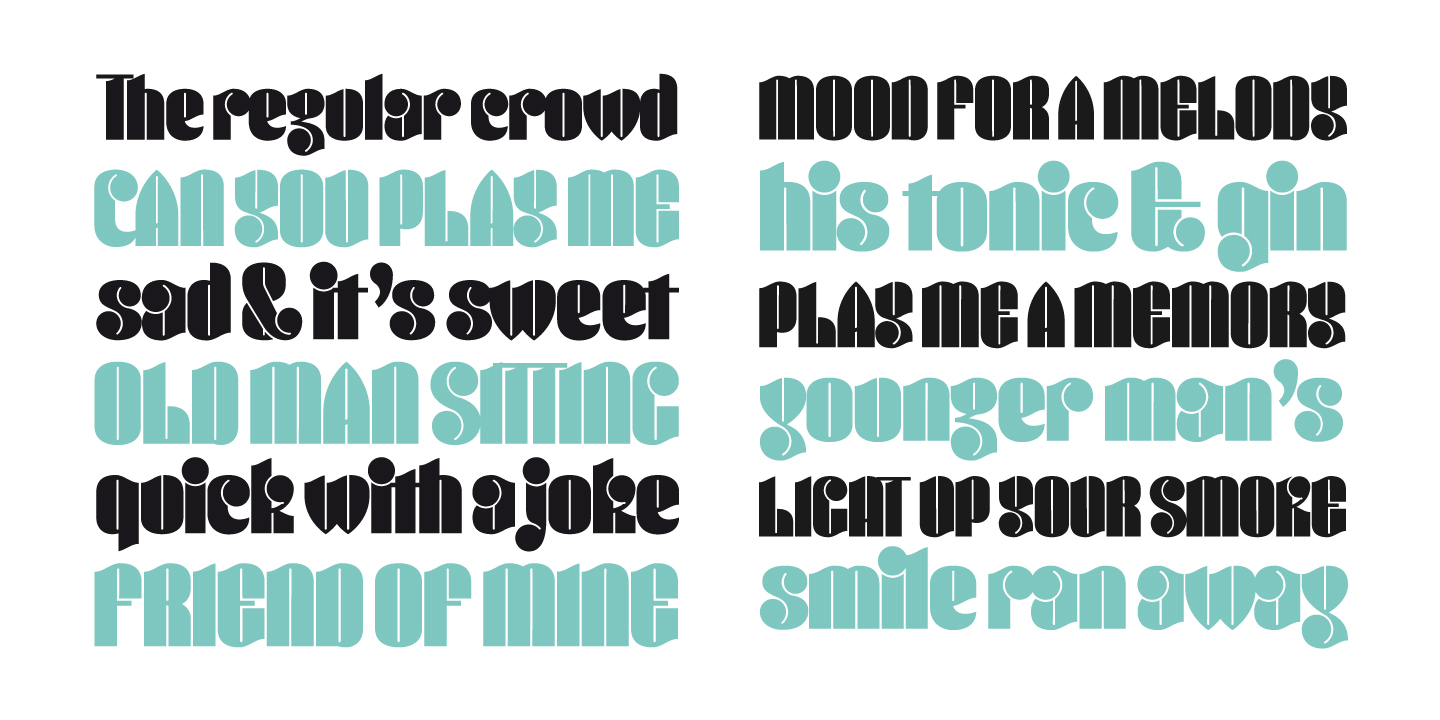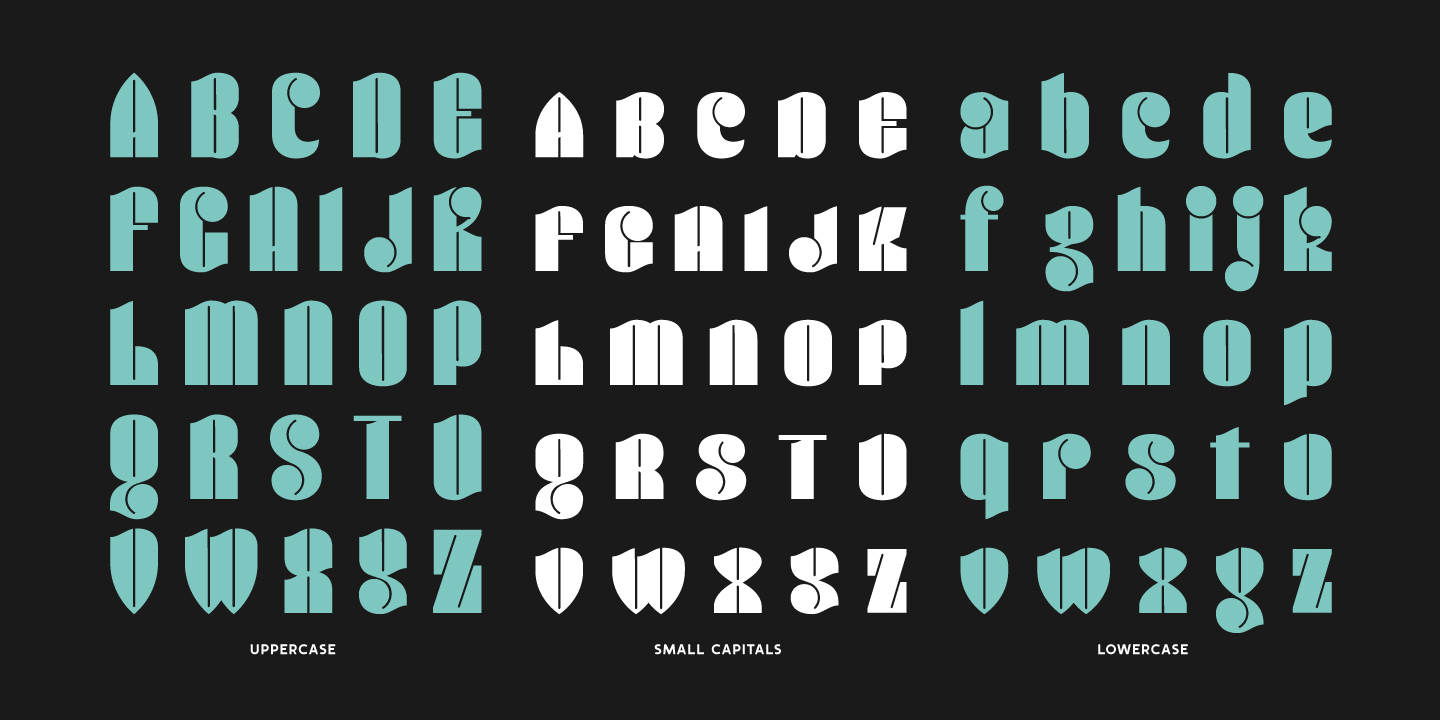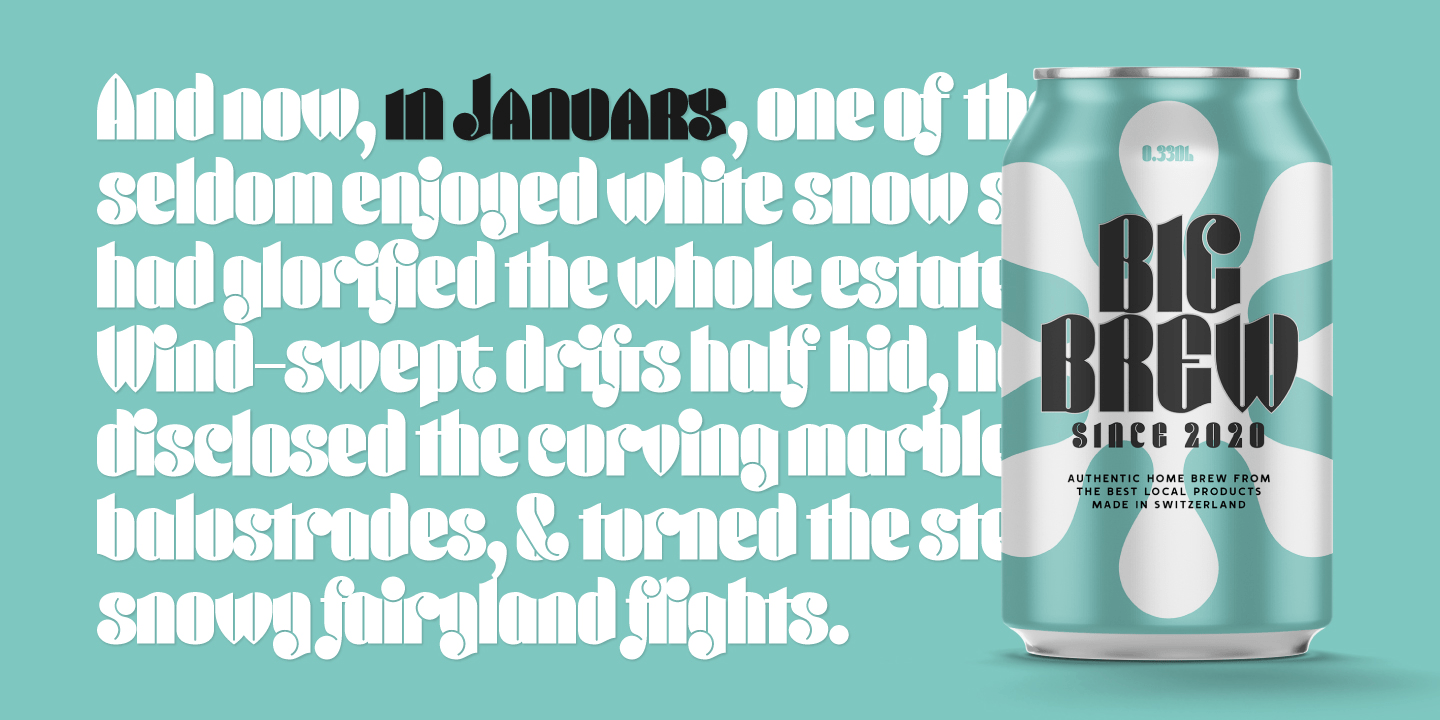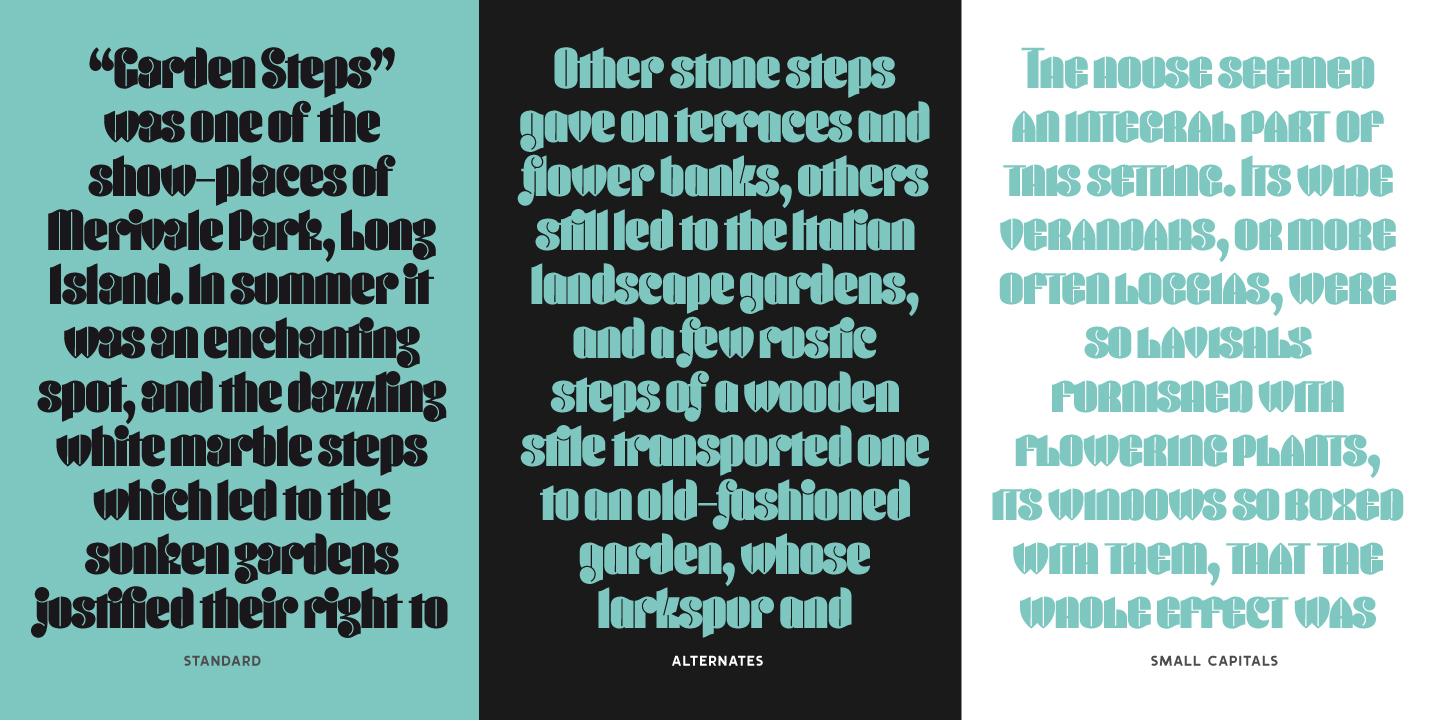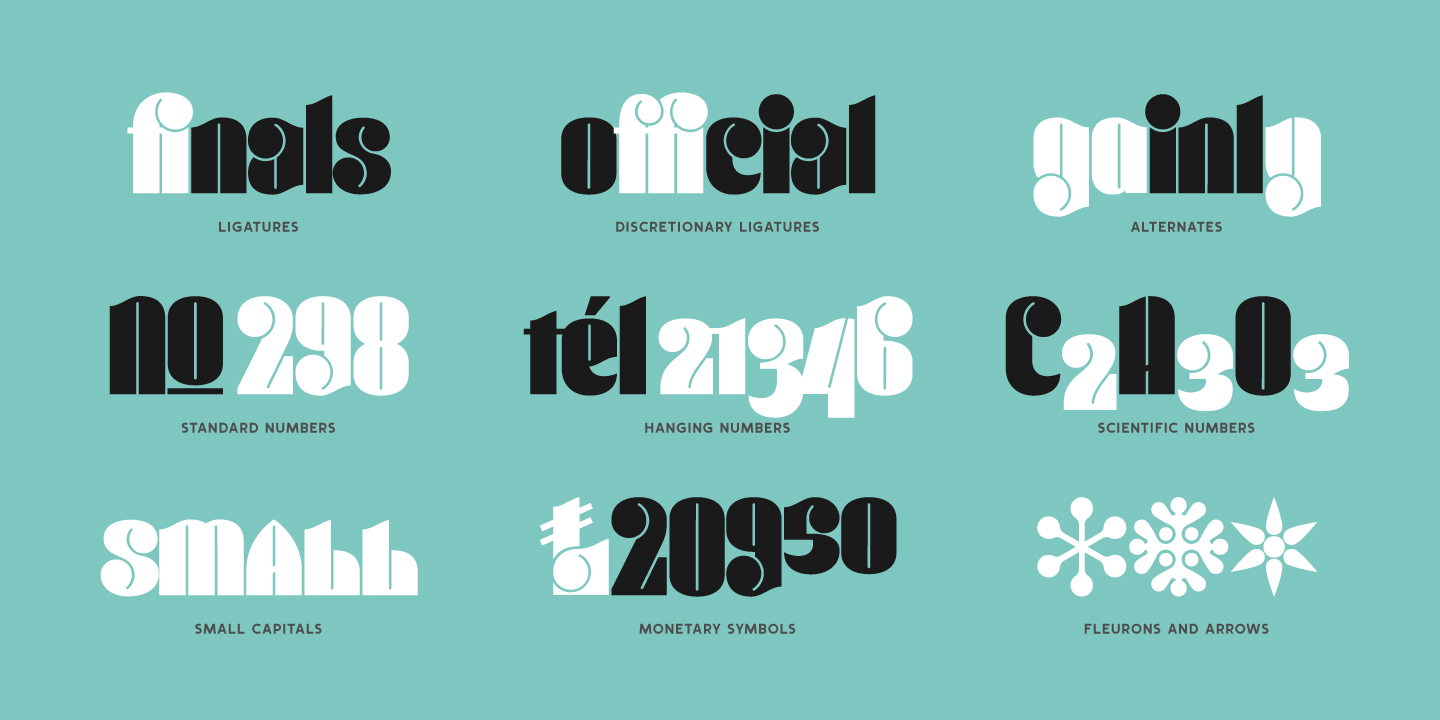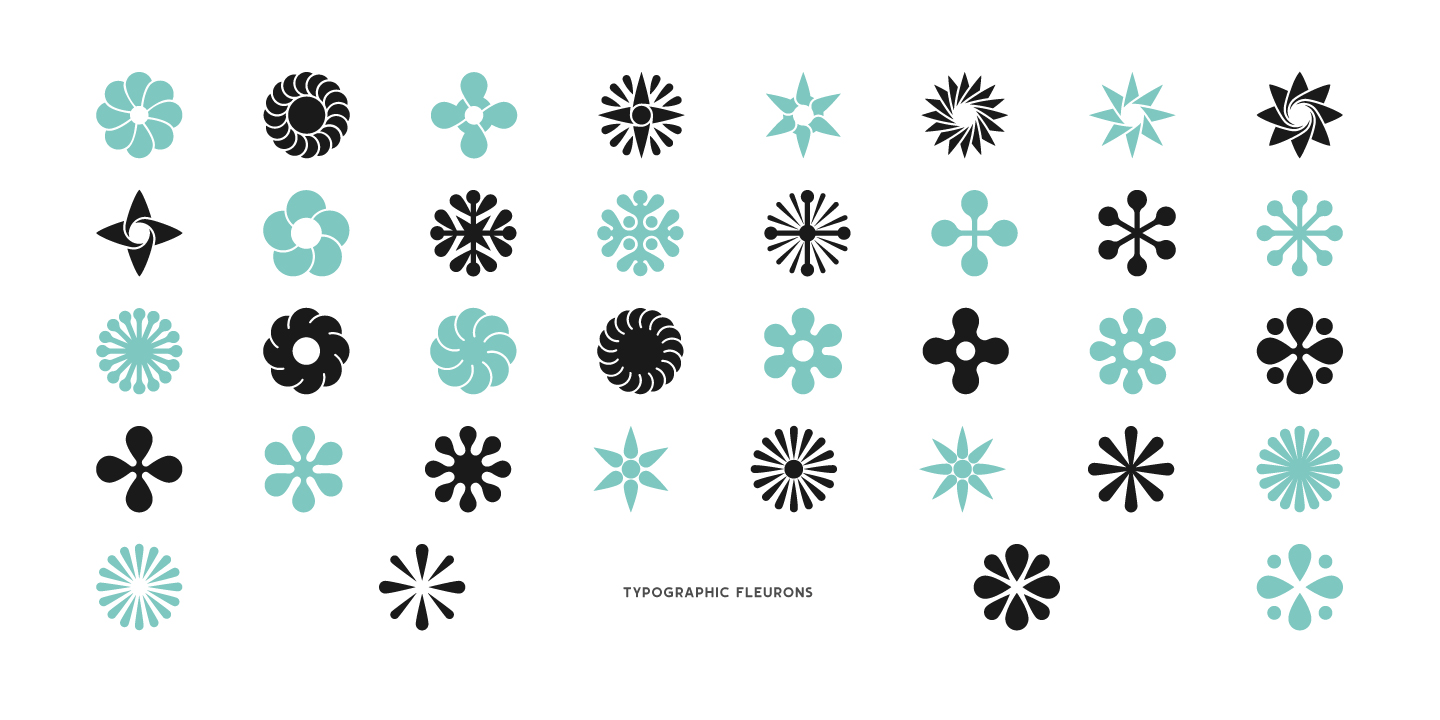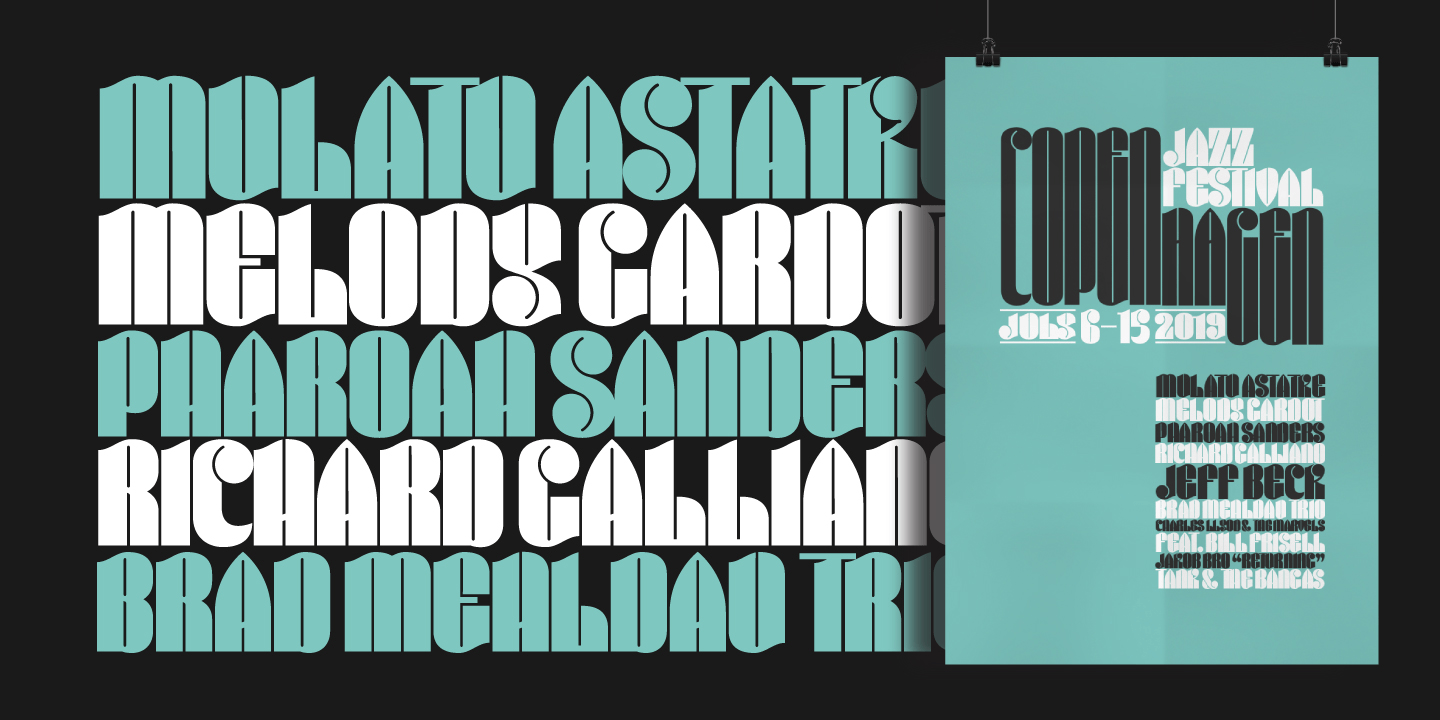
About Conica
Conica is a bold, condensed typeface that aims to grab your attention. By playing with heavy, dark shapes and small counters, this single weight typeface explores the contrast between defined shapes and gentle curves to produce a surprising headline font.…